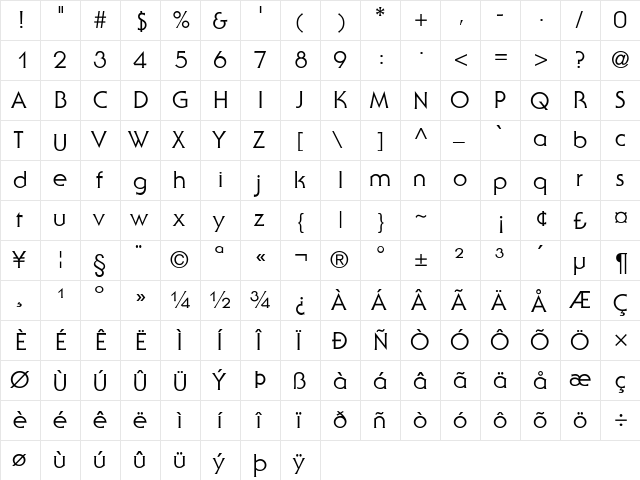
JennyDB Normal
Design Context for JennyDB Typeface
JennyDB takes a measured approach to typography — its balanced proportions and neutral character make it a reliable workhorse for both digital and print work.